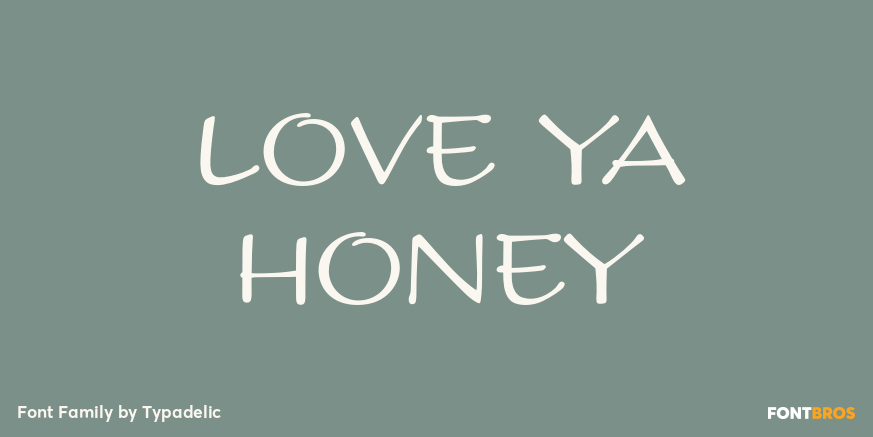
Love Ya Honey
About Love Ya Honey
Aw, aren\’t they sweet? This lettering is based on a 1950s note a husband wrote to his wife shortly after they were married. His beautifully controlled and strong handwriting has no lowercase characters; he gets his point across in uppercase only. Love…